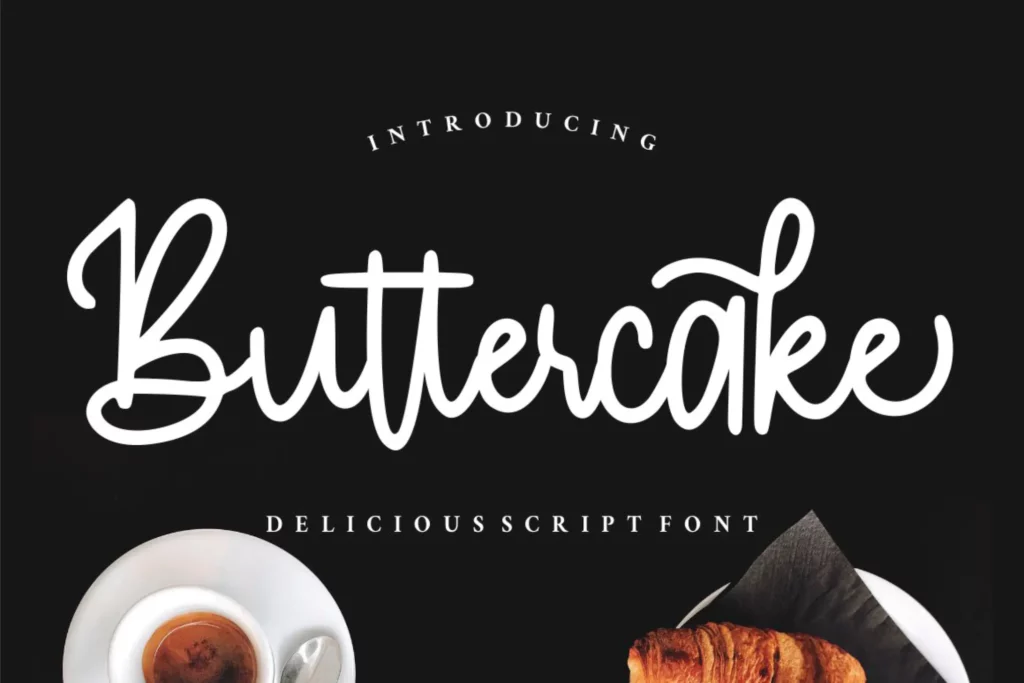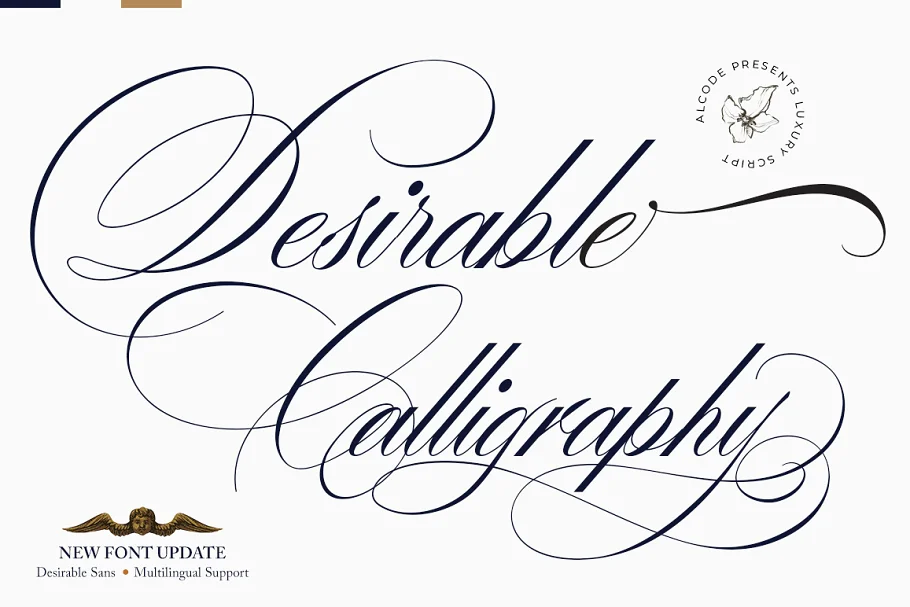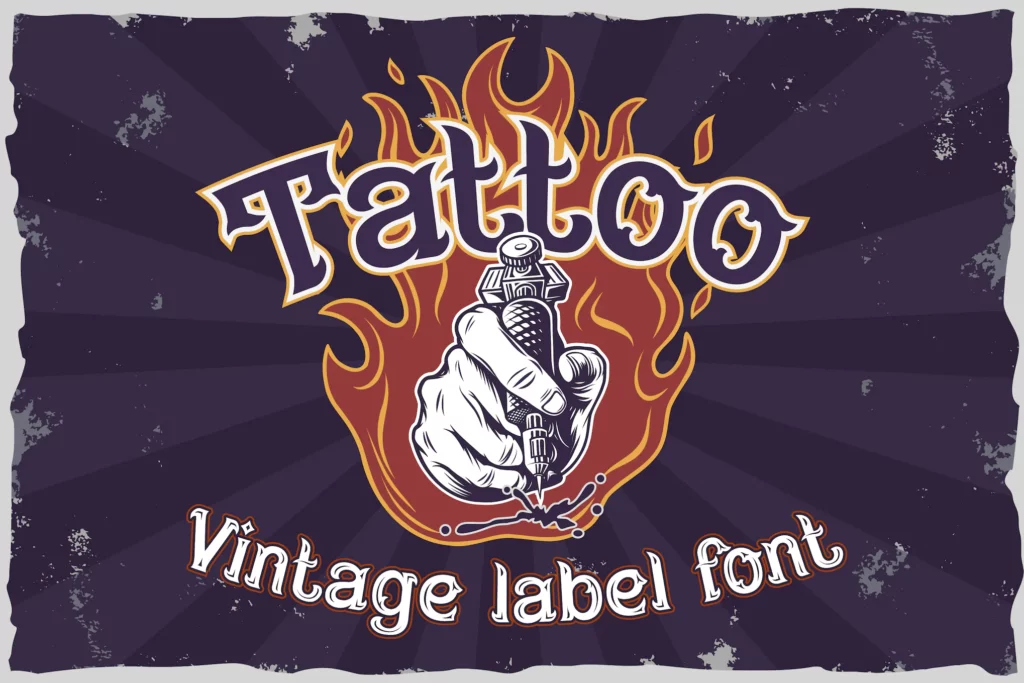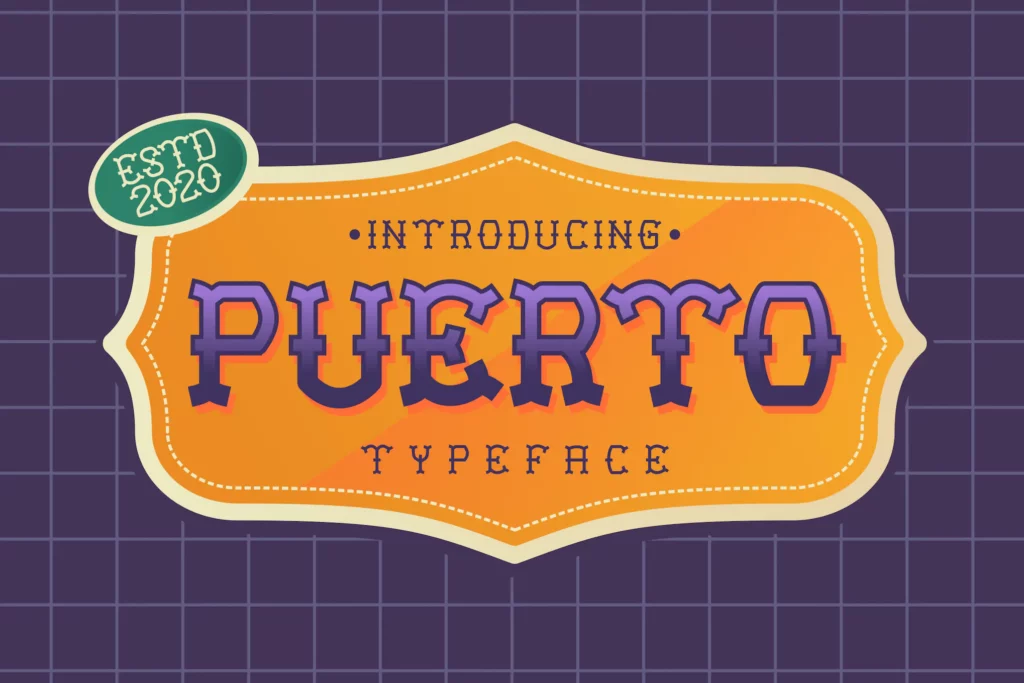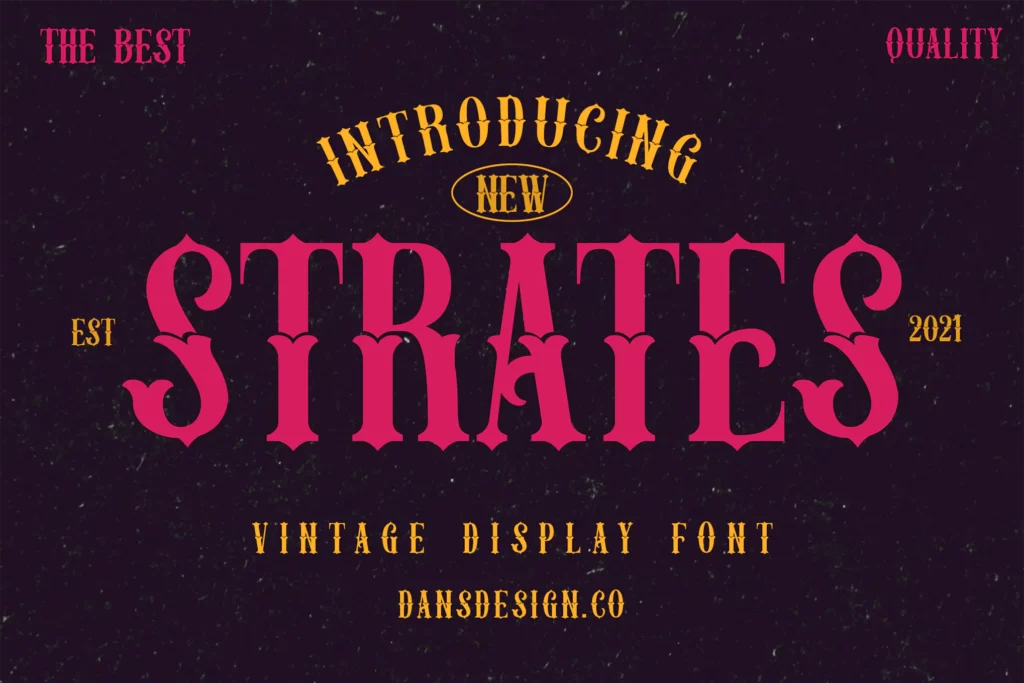
15+ Stylish Tattoo Fonts for Women in 2025
Are you on the lookout for all of the best tattoo fonts for women? If you are, then this feature is for you! Check out our roundup below!
There’s something about tattoos that makes flaunting self-expression a little more exciting.
Whether it’s wearing your heart out or making a statement, tattoos are staples in individualism. As such, this aesthetic has carried over into the digital world.
With fonts copying nearly everything where art is present, typefaces have managed to breathe life into the works we put out and the texts we write.
Let’s go over the best tattoo fonts for women available online today!
Top 10 Stylish Tattoo Fonts for Women in 2025
1. Chica Script Font
2. Strong West – Retro Tattoo Font
3. BRADWICK – Tattoo Font
4. Puerto Playful Tattoo Font
5. Buttercake | Monoscript Font
6. Desirable Calligraphy
7. Reina Neue
8. Fire Needle – Tattoo Parlor Label Font
9. STRATES VINTAGE TATTOO FONT
10. Just Cosmic Font + Logos
15+ Stylish Tattoo Fonts for Women in 2025
1. Chica Script Font
Chica Script Font
Chica Script Font. Image Credits: Creative Market
Chica is an elegant tattoo script that’s intentionally designed to highlight words you want to keep on your skin forever!
Available in both uppercase and lowercase letters, this stylish tattoo font bundle should make it easier for you to convey whatever message you want to put out.
We liked how this font pack includes 20 ligatures, a bonus “swashes” font, and three tattoo illustrations.
2. Strong West – Retro Tattoo Font
Strong West - Retro Tattoo Font
Strong West – Retro Tattoo Font. Image Credits: Envato Elements
Strong West does a fantastic job sporting a strong headline aesthetic, while also doubling as a striking retro tattoo font.
Featuring serifs and added decorative elements, this beautiful font bundle tops our list of the best tattoo fonts for women.
Depending on your project’s theme, you can also use this font for logos, headers, posters, and other designs that demand attention.
Within the font pack, you’ll find uppercase letters, numbers, punctuation marks, and comprehensive multilingual support.
3. BRADWICK – Tattoo Font
BRADWICK - Sailor Tattoo Font
BRADWICK – Tattoo Font. Image Credits: Envato Elements
BRADWICK is another stellar font bundle that doesn’t stray too far from Strong West. Referred to as a vintage sailor font, not only is this a great tattoo font, but it’ll also work effectively as a signage and headline.
It’s been optimized for large projects as well so we enjoyed using this for posters, billboards, and more.
While the letters are all capitalized, this tattoo font pack also includes numbers and punctuation marks. It’s easy to install and is compatible with both Mac and Windows too.
4. Puerto Playful Tattoo Font
Puerto Playful Tattoo Font
Puerto Playful Tattoo Font. Image Credits: Envato Elements
Puerto is a playful font bundle with decorative elements, making it a great visual solution for a variety of things–tattoo-inspired or not.
Though it only has uppercase letters, this font’s style makes it more flexible than most tattoo fonts in our list.
As a tattoo-inspired font, it carries those aesthetics but it’s not dedicated to those either. Hence, we consider it suitable for any theme as the font for a logo, poster, branding effort, advertisement, and more.
5. Buttercake | Monoscript font
tattoo fonts for women
Buttercake | Monoscript font. Image Credits: Envato Elements
A dainty script font bundle, Buttercake does a tremendous job of keeping an amicable aesthetic while remaining classy and versatile.
Packed with uppercase and lowercase letters, alternates, numbers, and punctuation marks, this pastry-inspired tattoo visual is perfect for more than just your everyday headline.